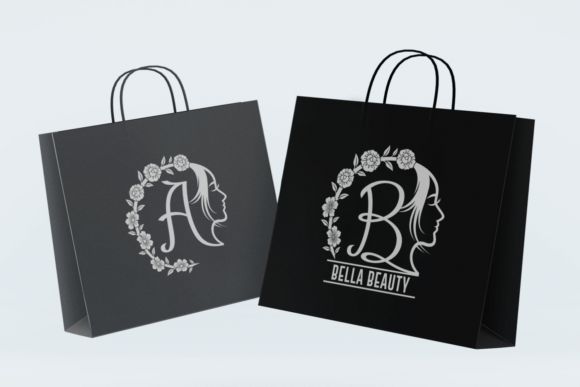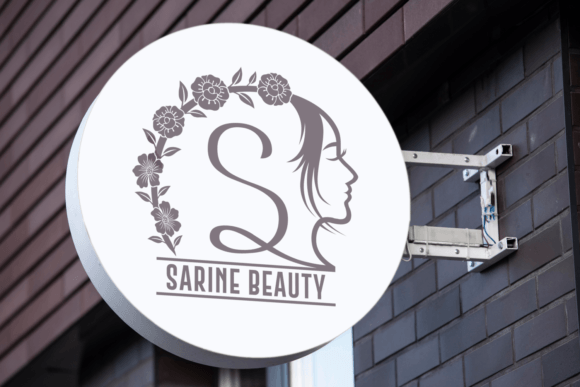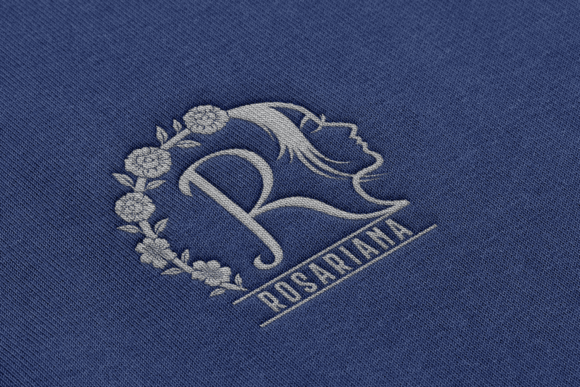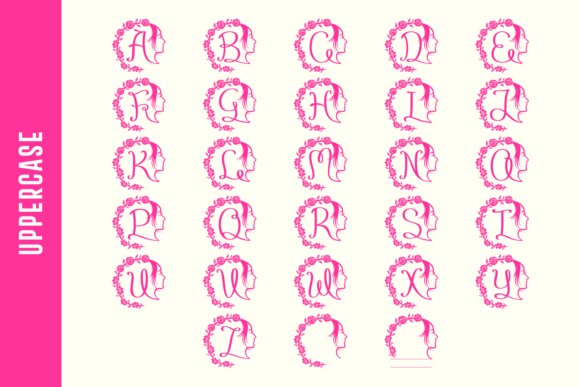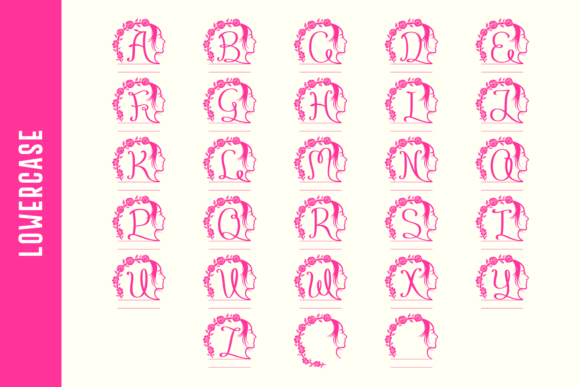
Unlock the Beauty of Hand-Drawn Elegance
Imagine strolling through a lush garden on a warm summer day, surrounded by vibrant flowers and the sweet scent of blooming blooms. It’s in these serene moments that inspiration strikes, and the creative mind begins to wander. For designers, the quest for unique and captivating fonts is a constant pursuit. And that’s where the Arlynda Font comes in – a beautiful decorative font featuring elegant flowers that will transport your designs to a world of whimsy and wonder.
The Arlynda Font is the perfect choice for those seeking to add a touch of authenticity to their projects. From wedding invitations to social media posts, this font is sure to leave a lasting impression. Its versatility and charm make it a valuable asset for designers, allowing them to create stunning visuals that evoke a sense of romance and sophistication. Whether you’re a seasoned pro or just starting out, the Arlynda Font is an essential tool in your design arsenal.
Arlynda Font Key Features
- Font Family: Arlynda
- Unique Characteristics: Elegant script font with flowing connections and beautiful flourishes, ideal for wedding invitations, greeting cards, and other romantic designs
Arlynda Font Review
Overall, I’m quite impressed with the Arlynda Font, especially its ✨ elegant and refined aesthetic. The font’s versatility makes it suitable for a wide range of applications, from formal documents to creative projects.
- ✨ Beautiful letterforms with a touch of sophistication
- ✨ Wide range of font weights and styles, allowing for endless customization options
- ✨ Excellent legibility, even at smaller font sizes
However, I do have some concerns about the font’s limitations, which may impact its usability in certain situations. The main issue I’ve encountered is the ✗ relatively limited font size range, which can make it difficult to scale the font without compromising its quality.
- ⚠️ Limited font size range, which may lead to pixelation at larger sizes
- ⚠️ Some users may find the font too formal or traditional, limiting its appeal in more modern or edgy designs
Despite these limitations, I believe the Arlynda Font is a solid choice for designers seeking a high-quality, elegant font. With some careful planning and consideration of its limitations, this font can add a touch of sophistication to any project.
Arlynda Font is a versatile and elegant font that can be used for a variety of purposes, including:
- Brand logos and marketing materials
- Book covers and literary works
- Special occasion cards and gift tags
For best results, use Arlynda Font in conjunction with high-quality images and design elements to create a cohesive and visually appealing look.